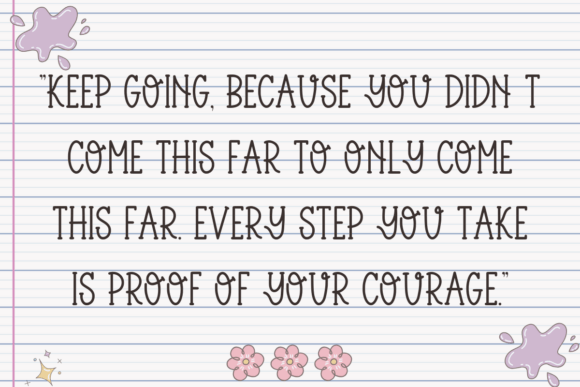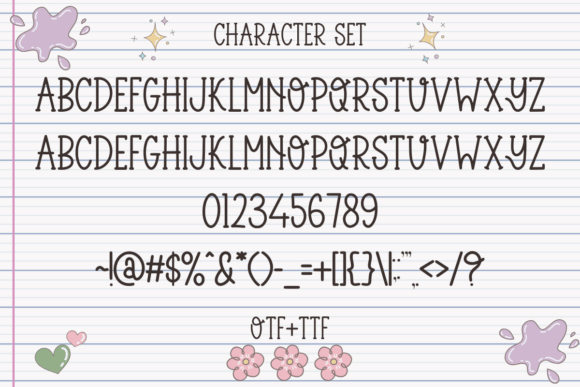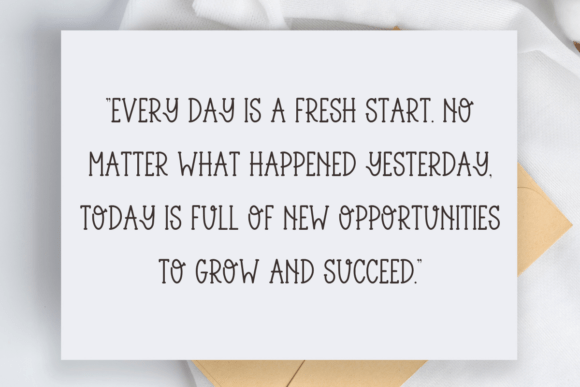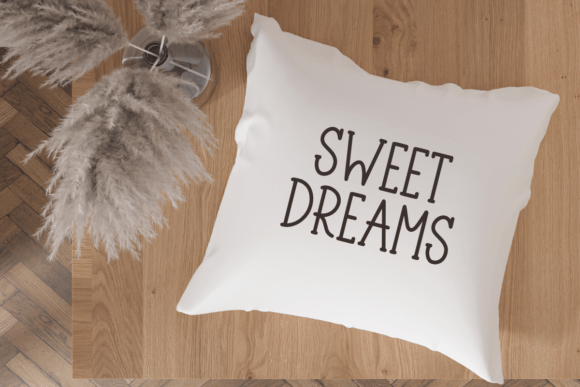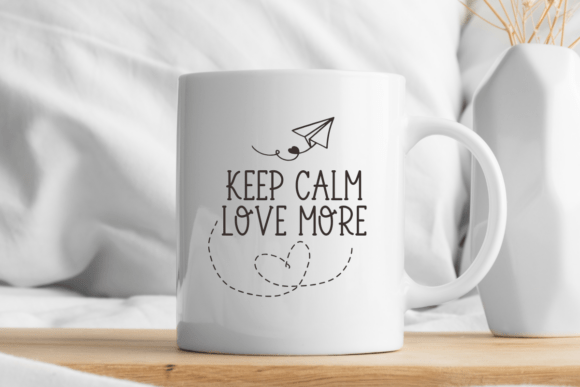
You know that moment when you’re brainstorming ideas for your next craft project, and you’re stuck on the perfect font to match your theme? You scroll through font collections, and nothing seems quite right. Well, we’ve got some exciting news for you! Introducing the Grinch Sticker Font, a delightful and playful font that’s sure to bring a smile to your face.
This adorable font is designed specifically for crafts, planners, Kindle Direct Publishing (KDP) projects, and more. With its cute and friendly style, it’s perfect for Cricut, sublimation, and DIY projects. Whether you’re a crafter, designer, or maker, the Grinch Sticker Font is an invaluable addition to your creative toolkit.
Grinch Sticker Font Key Features
- Font Family: A unique, hand-drawn font inspired by the Grinch character from Dr. Seuss stories.
- Unique Characteristics: Features a playful, whimsical style with irregular letterforms and expressive flourishes.
Designer Review: Grinch Stinchler Font
I recently had the chance to work with the Grinch Sticker Font, and I must say, it was a unique experience. The font has a lot of character, which is perfect for designs that need a playful, whimsical touch. Here are some things that work well:
- ✨ The font’s irregularity adds a lot of personality to text. It’s great for headings and titles that need to stand out.
- ⚠️ The font can be difficult to read, especially in smaller sizes or when used for large blocks of text.
Overall, I think the Grinch Sticker Font is a great addition to any designer’s toolkit. It’s perfect for projects that need a touch of whimsy and personality. Just be mindful of its limitations and use it sparingly when necessary. With the right design, this font can be a real showstopper.
The Grinch Sticker Font is perfect for:
Creating holiday-themed designs for social media, flyers, or posters.
Adding a playful touch to birthday party invitations or decorations.
Designing custom stickers or labels for gifts or products.